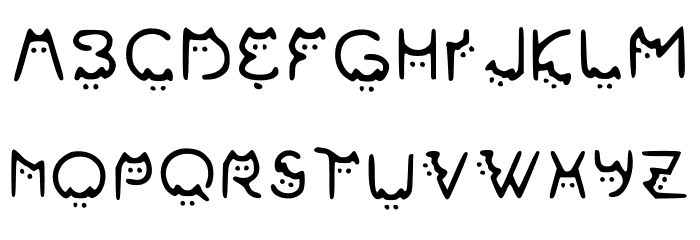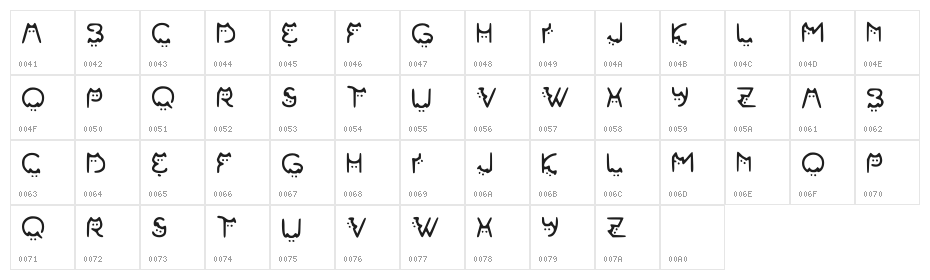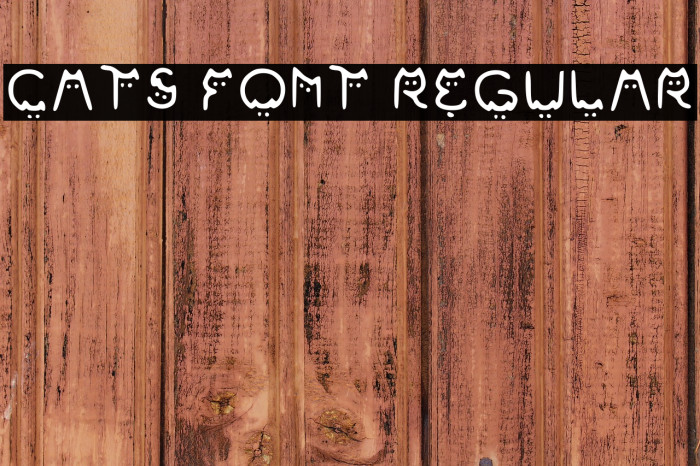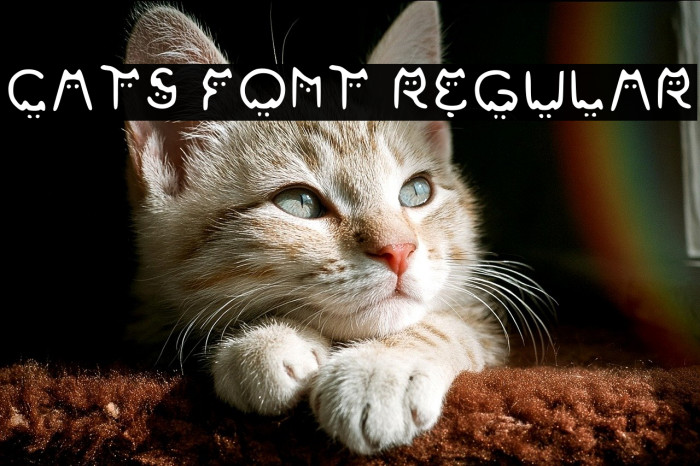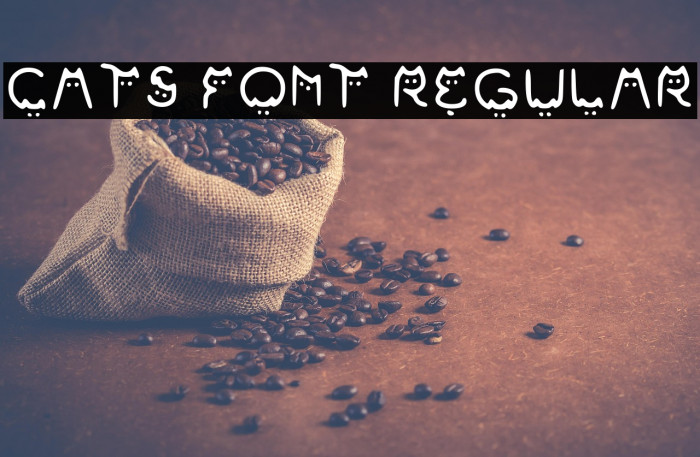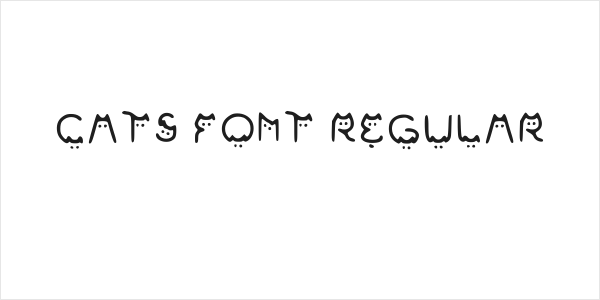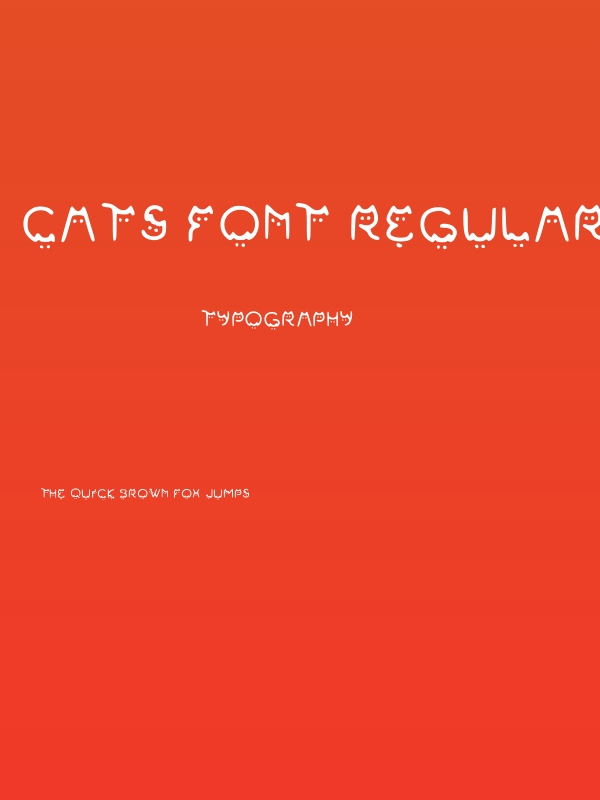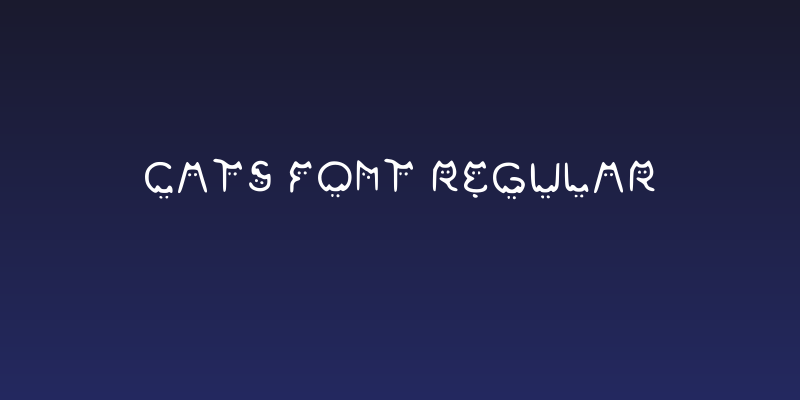
Cats Font Regular Font
Cats Font Regular Description
This playful and whimsical font features letters with cat-like faces integrated into their design. Each character is crafted with rounded edges and a friendly, approachable style, incorporating small ears and facial features that resemble a cat. The font maintains a consistent stroke width throughout, adding to its charm and readability. It is perfect for projects that require a fun and lighthearted touch, such as children's books, pet-related branding, or playful event invitations. The unique design elements make it stand out while still being legible and engaging.
| Overall Style | Whimsical |
| Proposed Projects | Children's books, pet-related branding, playful event invitations, greeting cards. |